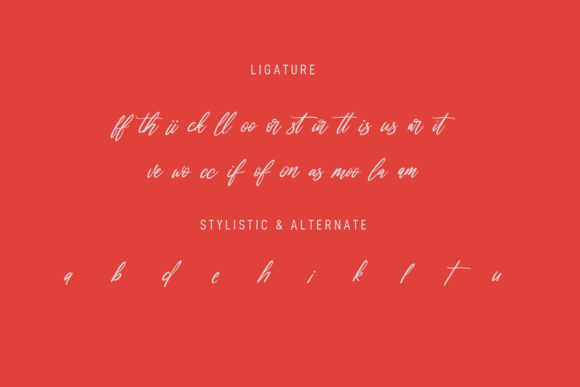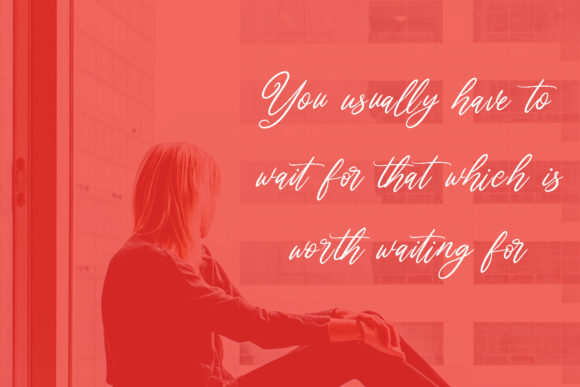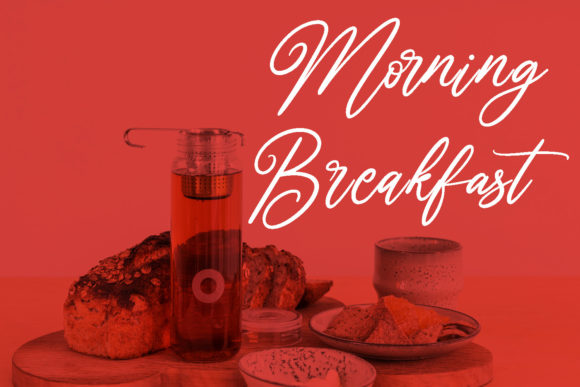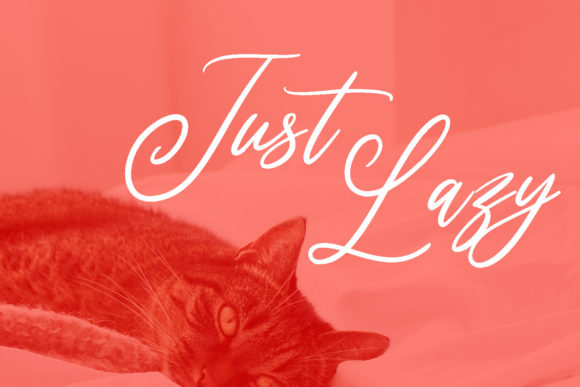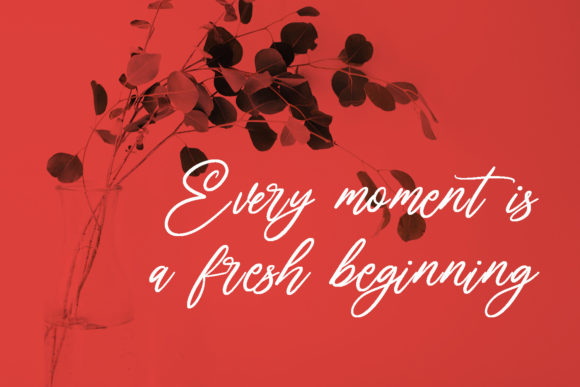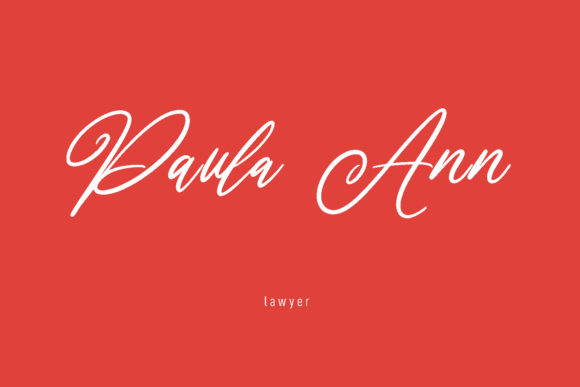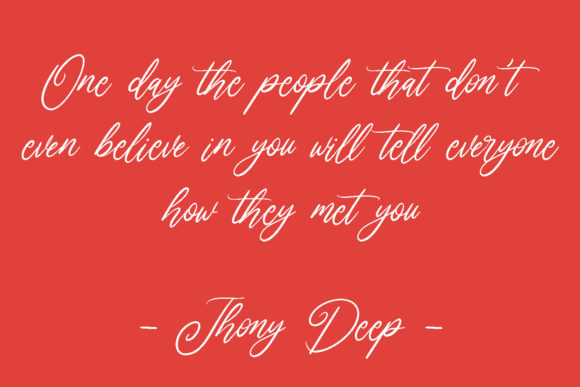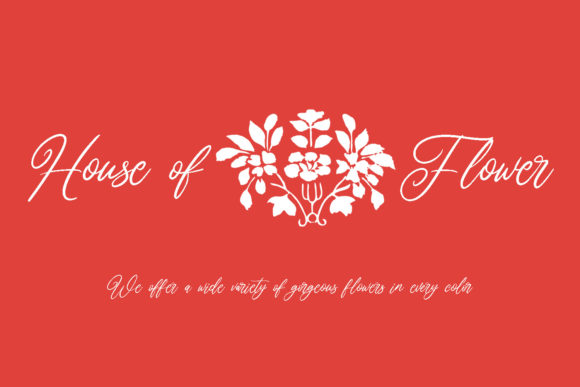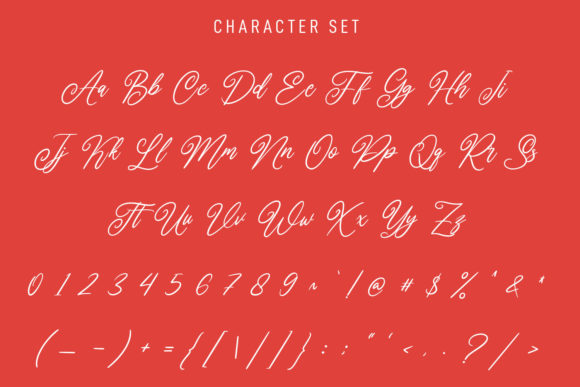
Bartelly Script Font
About Bartelly Script Font
Bartelly Script is a captivating script font boasting beautifully crafted and harmonious characters, perfectly suited for a wide array of design applications. Its elegant style seamlessly integrates with a diverse range of design projects, making it an ideal choice for branding endeavors including logo creation, t-shirt printing, creative product designs, and beyond.
With its intricate details and graceful curves, Bartelly Script adds a touch of sophistication to any visual composition. Whether you’re developing a brand identity, crafting merchandise, or designing promotional materials, this font imbues your creations with charm and allure.
The versatility of Bartelly Script lends itself well to various branding initiatives. Whether you’re establishing a new business identity, revitalizing an existing brand, or creating merchandise for a special event, this font offers the flexibility and style to bring your vision to life.
Its seamless integration with design elements ensures a cohesive and polished aesthetic across all branding materials. Whether used in isolation or combined with other fonts and graphics, Bartelly Script elevates the overall presentation, leaving a lasting impression on your audience.
For t-shirt printing, Bartelly Script adds a distinctive flair to apparel designs, transforming simple garments into stylish fashion statements. Its eye-catching appeal and legibility make it suitable for a wide range of styles and themes, ensuring your designs stand out in a crowded marketplace.
Creative products also benefit from the unique charm of Bartelly Script. Whether you’re designing packaging, labels, or promotional materials for handmade goods, artisanal products, or innovative creations, this font adds a touch of elegance and personality that resonates with consumers.
In summary, Bartelly Script is more than just a font—it’s a versatile tool that enhances branding projects with its captivating style and timeless elegance. Whether you’re designing logos, printing t-shirts, or creating innovative products, this font elevates your designs with its beautiful and balanced characters, making it a must-have for any creative endeavor.